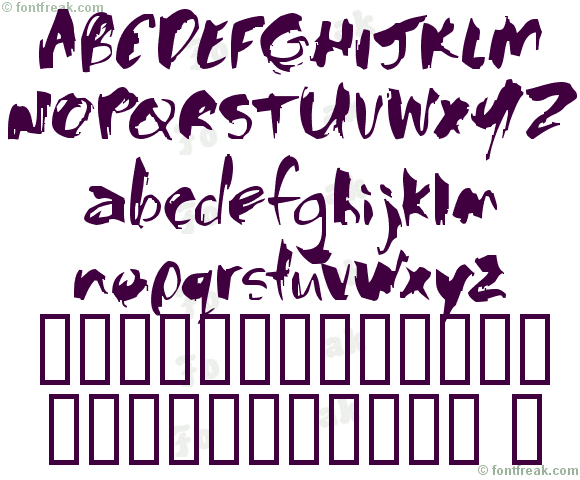
Baloney
About Baloney
The Baloney font, designed by Robotic Attack Fonts in 1998, is a captivating display typeface that embodies a unique blend of creativity and expressiveness. This freeware font showcases a distinctive handwritten style, characterized by its irregular strokes and playful letterforms. The stroke weight varies throughout the characters, adding a dynamic quality that makes it stand out in any design context. The contrast between thick and thin lines creates visual interest, while the spacing between letters is designed to evoke a sense of spontaneity and fun.
Baloney is an excellent choice for a variety of creative applications. It shines in wedding invitations, where its whimsical nature can convey a sense of joy and celebration. Additionally, it works wonderfully on movie posters, capturing attention with its bold and artistic flair. Restaurant menus can also benefit from the Baloney font, as its unique style can enhance the overall dining experience by adding character to the menu design. Content creators looking to add a personal touch to their projects will find this font particularly appealing, making it ideal for social media graphics and blog headers.
Graphic designers and small business owners will appreciate the versatility of Baloney, as it brings a sense of individuality to branding and promotional materials. The font's unique visual characteristics allow it to stand out in crowded marketplaces while maintaining a relatable charm.
In conclusion, the Baloney font offers a refreshing option for anyone seeking to infuse their designs with personality and creativity. Its distinctive style and varied stroke weights make it a memorable choice that can elevate a wide range of projects. For those interested, a Baloney font free download is available, allowing you to explore the potential of this unique typeface in your own designs.